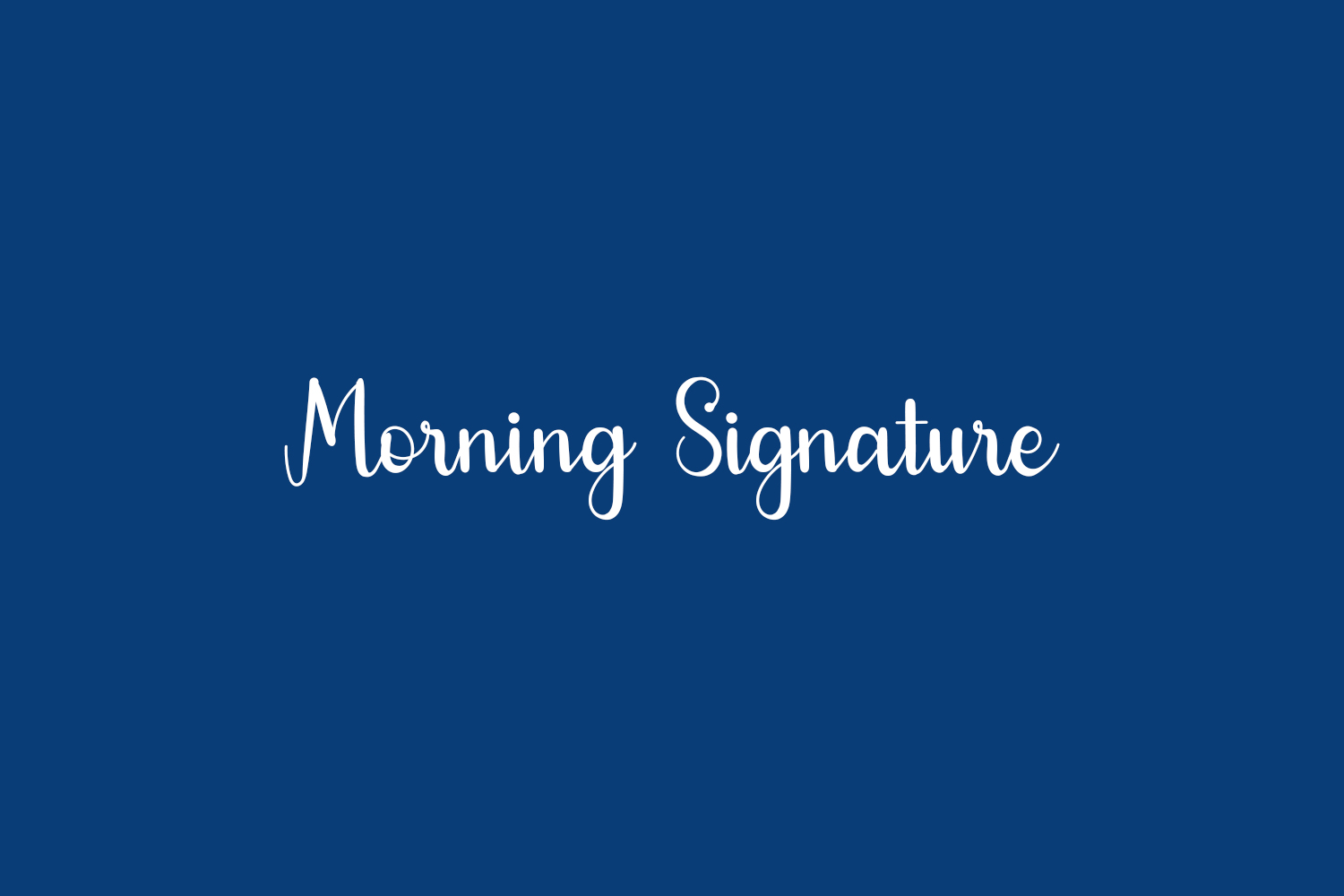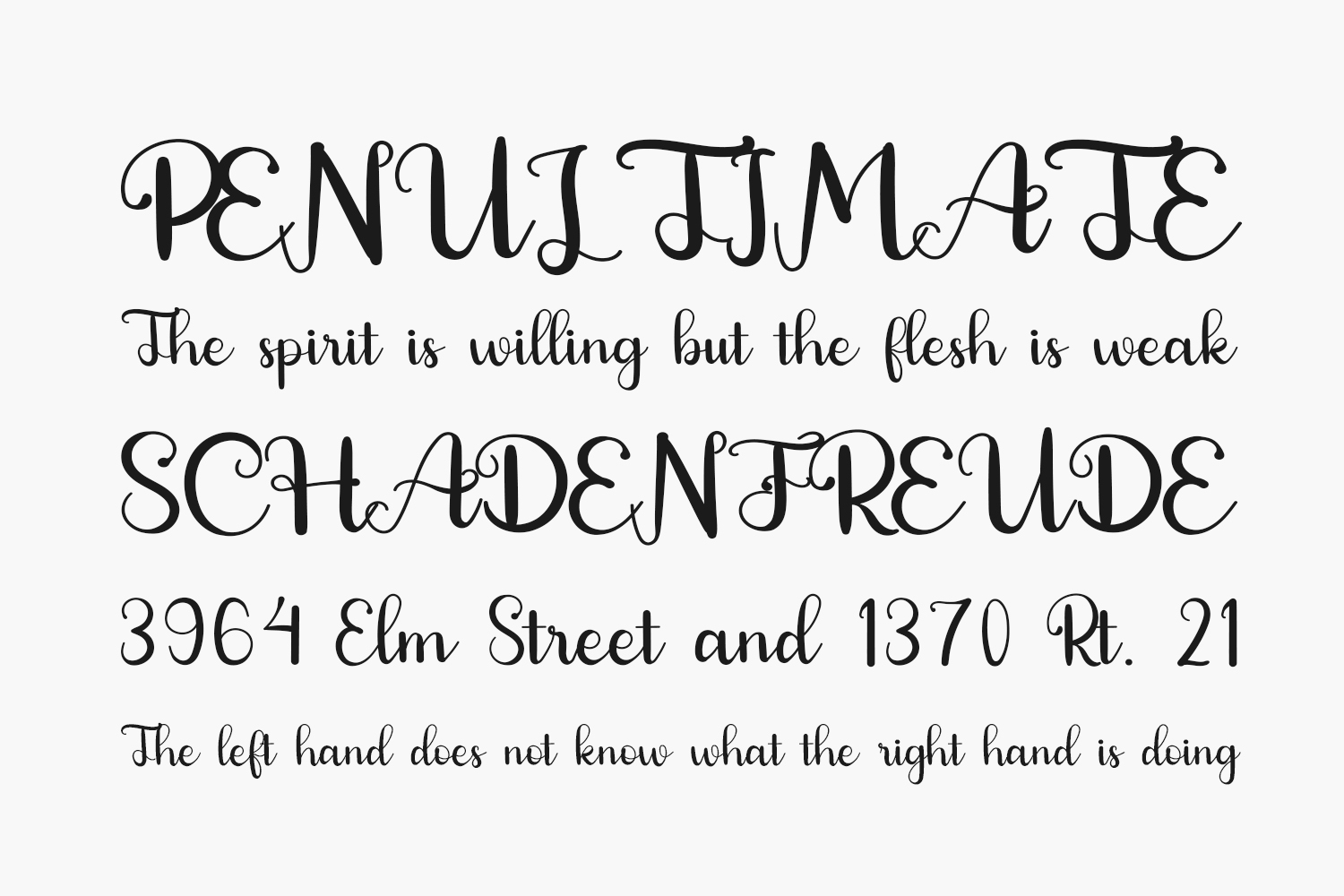
Morning Signature Free Font feels incredibly elegant and flowing. It looks stunning on wedding invitations, thank you cards, quotes, greeting cards, logos, business cards, and every other design which needs a handwritten touch. Morning Signature Free Font was designed by Inermedia Studio and is free for personal use only. Please purchase the full version for commercial use.
Designed by Inermedia Studio